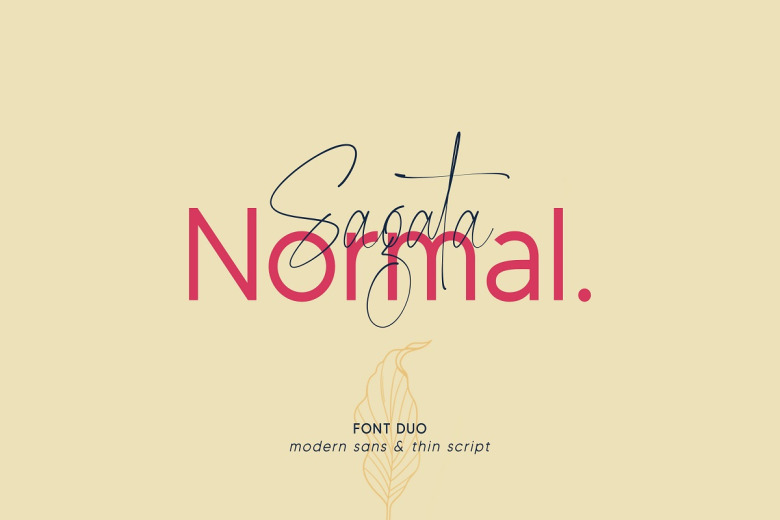
Sagata Normal Font
Sagata Normal Font Duo is an elegant font duo that has advantages in every letter. Script and sans font duo that is inspired by modern signature and sans combinations.
It works perfectly for creative project such as logo, T-shirt / apparel, badge, invitation, packaging, headline, poster, magazine, greeting card, and wedding invitation.
Sagata Normal Font Duo